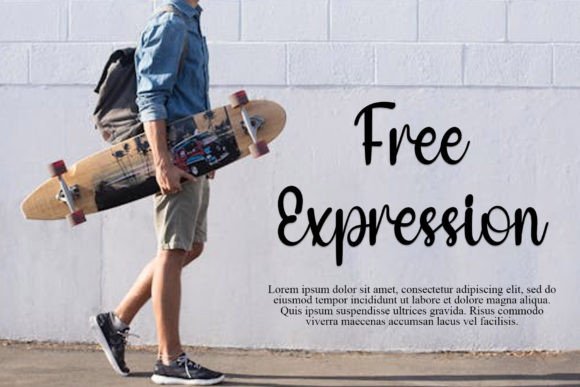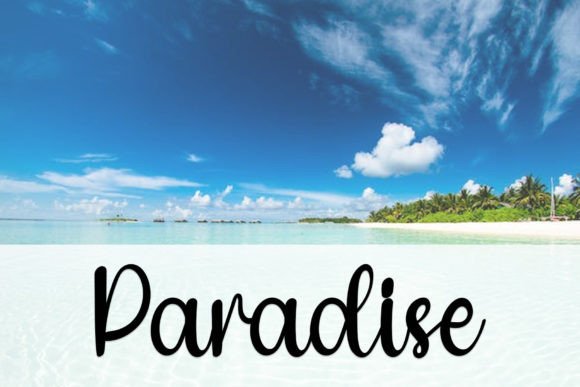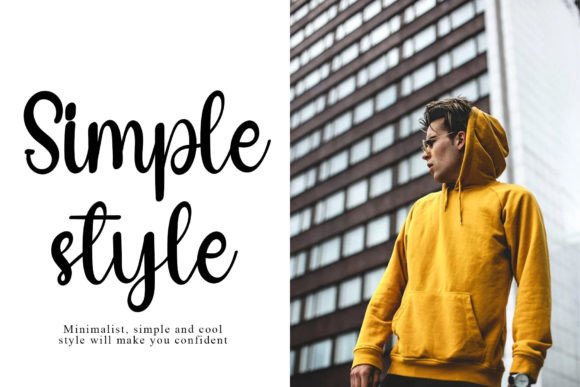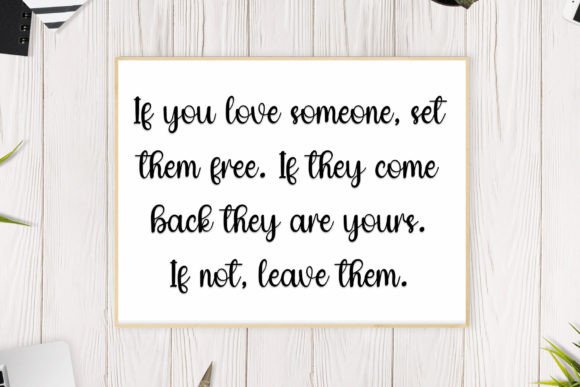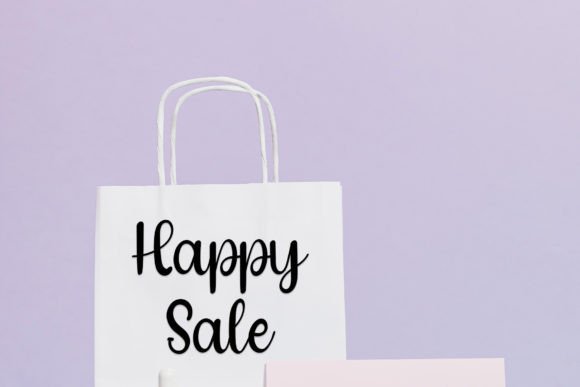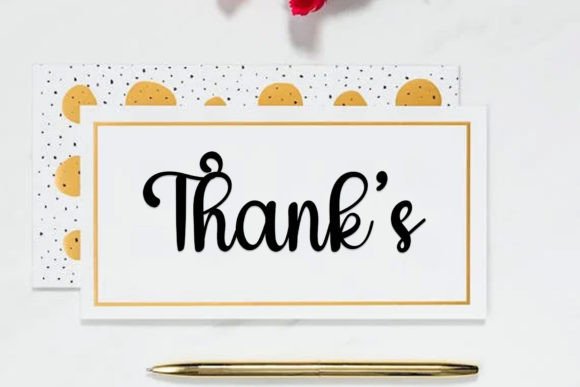
Introducing Happy Smile Font: Elevate Your Designs with Elegance
Are you on the hunt for a font that exudes elegance, sophistication, and a touch of modern minimalism? Look no further than the Happy Smile Font. This stylish and elegant writing font is perfect for designers and crafters seeking to add a personal, handwritten touch to their projects. With its clean lines and beautiful aesthetic, Happy Smile Font is sure to become your go-to choice for a variety of design applications.
What Makes Happy Smile Font Stand Out?
Happy Smile Font boasts a modern and minimalist style that instantly elevates any design. Its elegant writing style is reminiscent of calligraphy, yet it maintains a simplicity that ensures versatility across various projects. Whether you’re working on wedding invitations, thank you cards, quotes, greeting cards, logos, or business cards, this font seamlessly adapts to provide a sophisticated and eye-catching appeal.
The versatility of Happy Smile Font makes it an ideal choice for numerous design applications. Here are some of the ways you can use this beautiful font:
- Wedding Invitations: Add a touch of romance and elegance to your wedding invitations. The Happy Smile Font is perfect for conveying the joy and beauty of your special day.
- Thank You Cards: Express your gratitude with style. This font adds a personal touch to thank you cards, making them more meaningful and heartfelt.
- Quotes: Give your favorite quotes a stylish makeover. The elegant nature of Happy Smile Font ensures that your quotes stand out and inspire.
- Greeting Cards: From birthday wishes to holiday greetings, this font adds a layer of sophistication and warmth to your cards.
- Logos: Create a memorable brand identity with Happy Smile Font. Its unique and stylish appearance can help your logo stand out.
- Business Cards: Make a great first impression with elegant business cards. This font conveys professionalism and style.
Why Choose Happy Smile Font?
There are several reasons why Happy Smile Font should be your top choice for your design projects:
- Elegance: It brings an unmatched level of elegance to your designs.
- Versatility: Suitable for a wide range of projects, from personal to professional.
- Readability: Despite its elegant style, it maintains high readability.
- Uniqueness: Stand out from the crowd with a font that is both stylish and distinctive.
Tips for Using Happy Smile Font
To get the most out of Happy Smile Font, consider the following tips:
- Pair with Other Fonts: Experiment with pairing Happy Smile Font with other fonts to create interesting contrasts and hierarchies in your designs.
- Adjust Size and Color: Play with different sizes and colors to emphasize certain parts of your text and add depth to your designs.
- Use in Digital and Print: This font is versatile enough to be used in both digital and print projects, making it a great addition to your font library.